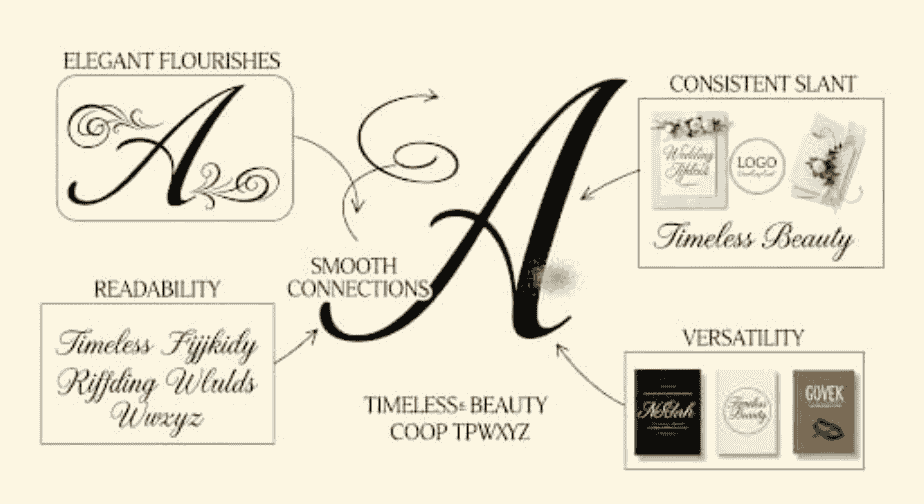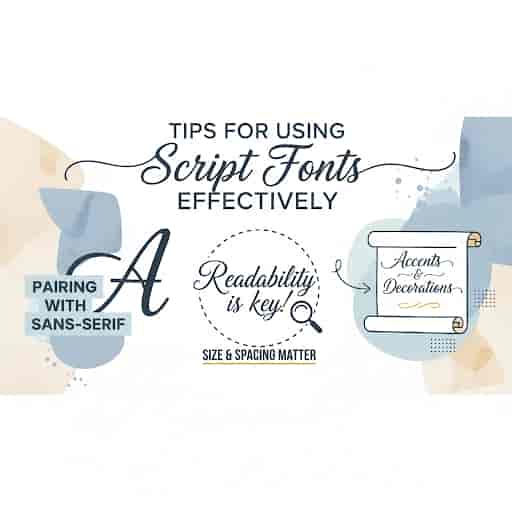
1. Introduction: Why Script Fonts Matter
Script fonts have long been celebrated for their elegance, sophistication, and ability to convey emotion through design. Unlike standard serif or sans-serif fonts, script fonts mimic the fluidity of human handwriting or calligraphy, making them ideal for wedding invitations, branding, logos, and luxury product designs. The key to timeless script fonts is their versatility—they remain relevant despite design trends evolving over time.
2. Characteristics of Timeless Script Fonts
A timeless script font typically exhibits the following features:
• Elegant Flow: Smooth, flowing strokes that feel natural and artistic.
• Legibility: Despite its decorative style, it should remain readable in various sizes.
• Versatility: Works across branding, editorial design, packaging, and digital media.
• Balance Between Classic and Modern: While rooted in traditional calligraphy, it should suit contemporary aesthetics.
Fonts that meet these criteria can instantly convey sophistication and emotional depth in your designs.
3. Top Timeless Script Fonts for Every Designer
3.1 Classic Calligraphy Styles
Classic calligraphy fonts are inspired by centuries-old handwriting techniques. They convey a sense of history, refinement, and artistry. Examples include:
• Rais Elegant Script – A versatile calligraphy font perfect for luxury branding and wedding invitations. View on RaisProject
• Vintage Calligraphy Pro – Combines ornate flourishes with readability. Ideal for print and digital projects. View on RaisProject
These fonts are particularly effective for projects that require a sense of tradition and timelessness.
3.2 Modern Elegant Scripts
Modern elegant scripts blend classic cursive forms with sleek, contemporary lines. They maintain readability while adding a touch of sophistication. Examples include:
• Rais Modern Script – A clean, flowing font that works beautifully for logos and social media graphics. View on RaisProject
• Sophia Luxe – Elegant with minimalistic curves, perfect for branding high-end products. View on RaisProject
These fonts are great for designers seeking a balance between modern aesthetics and traditional charm.
3.3 Handwritten Charm
Handwritten script fonts evoke warmth and personality. They are ideal for personal branding, packaging, and editorial content. Examples include:
• Rais Handwrite Script – Casual yet stylish, giving a friendly and authentic vibe. View on RaisProject
• Friendly Script Pro – A playful, approachable font with smooth strokes. View on RaisProject
Handwritten scripts bring intimacy and relatability to your design while remaining stylish and professional.
4. How to Choose the Right Script Font
When selecting a script font, consider:
1. Purpose & Audience: Is it for a wedding invitation, luxury brand, or casual product? The font should reflect the tone.
2. Readability: Avoid overly decorative fonts for body text; save intricate designs for headers or logos.
3. Pairing: Script fonts often work best with clean sans-serif or serif fonts to maintain balance.
4. Consistency: Stick to 1–2 script fonts per project to avoid visual clutter.
For a detailed guide, CreativeBloq provides excellent examples of pairing script fonts effectively.
5. Tips for Using Script Fonts Effectively
• Use Sparingly: Script fonts shine in headlines, titles, or branding elements—not in long paragraphs.
• Mind Spacing: Pay attention to kerning and line spacing to enhance readability.
• Contrast Matters: Pair script fonts with simple backgrounds to avoid visual chaos.
• Test Across Media: Ensure your chosen font looks great on both print and digital platforms.
By following these tips, designers can harness the elegance of script fonts without sacrificing clarity.
6. Conclusion
Timeless script fonts are an essential tool in a designer’s toolkit. From classic calligraphy to modern and handwritten styles, these fonts can elevate any project, convey emotion, and create a lasting impression. At RaisProject, we offer a wide range of script fonts that are not only beautiful but also versatile and practical for professional use.
Whether you’re designing wedding invitations, luxury branding, or casual products, investing in high-quality, timeless script fonts ensures your designs remain stylish and relevant for years to come.